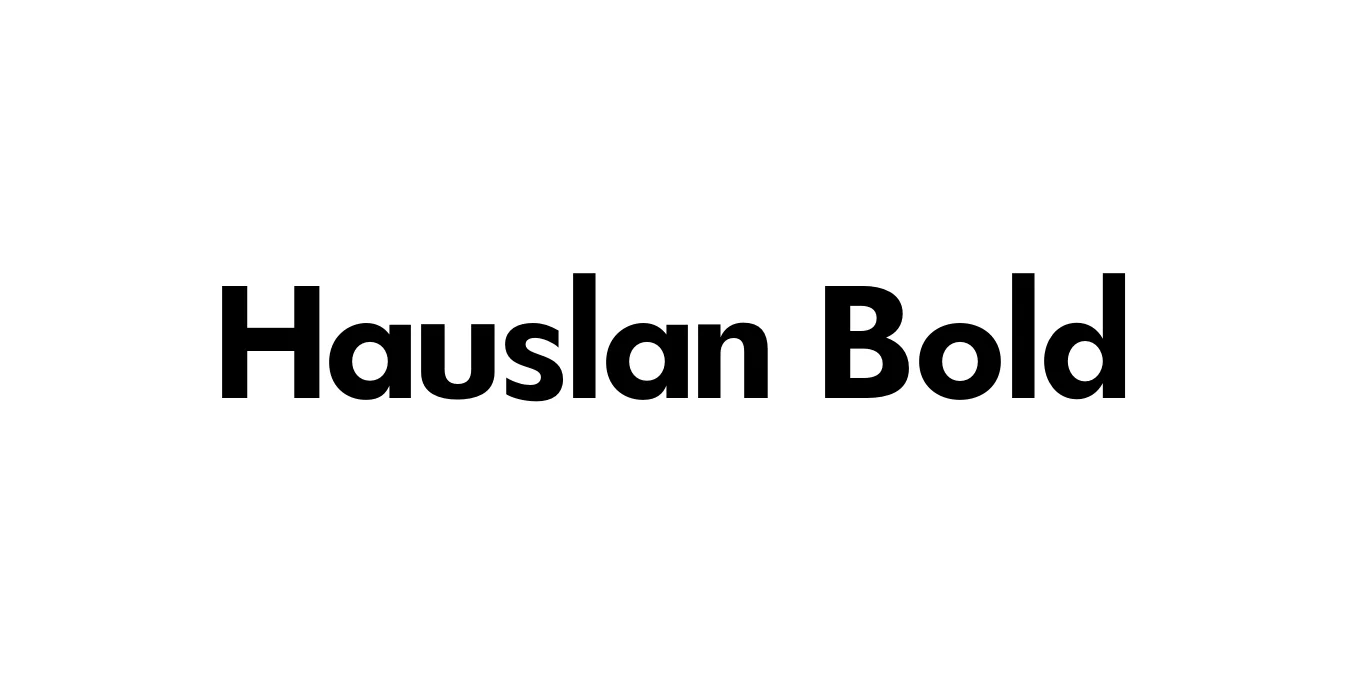
Hauslan Bold
Designed by Lettermoms
Hauslan Bold is a sophisticated sans-serif typeface created by the design studio Lettermoms. It is characterized by its clean, geometric construction and modern proportions, offering a balanced aesthetic that works exceptionally well in professional environments. The bold weight of this family is specifically engineered to provide maximum impact while maintaining excellent legibility, making it a reliable choice for high-visibility graphic design projects.
The history of Hauslan Bold lies in its pursuit of a minimalist yet authoritative voice for digital and print media. By stripping away unnecessary ornamentation, the designers focused on the rhythm and spacing of the letterforms, ensuring they perform consistently across various resolutions. Today, it is widely utilized in branding, editorial design, and corporate communications where a sense of clarity and modernism is required.
Hauslan Bold Best Uses
Ideal for creating strong, memorable visual identities and corporate logos.
Perfect for high-impact titles in posters, magazine spreads, and digital banners.
Provides a clean and structured look for mobile apps and website headers.
Effective for promotional materials that require a bold and trustworthy tone.